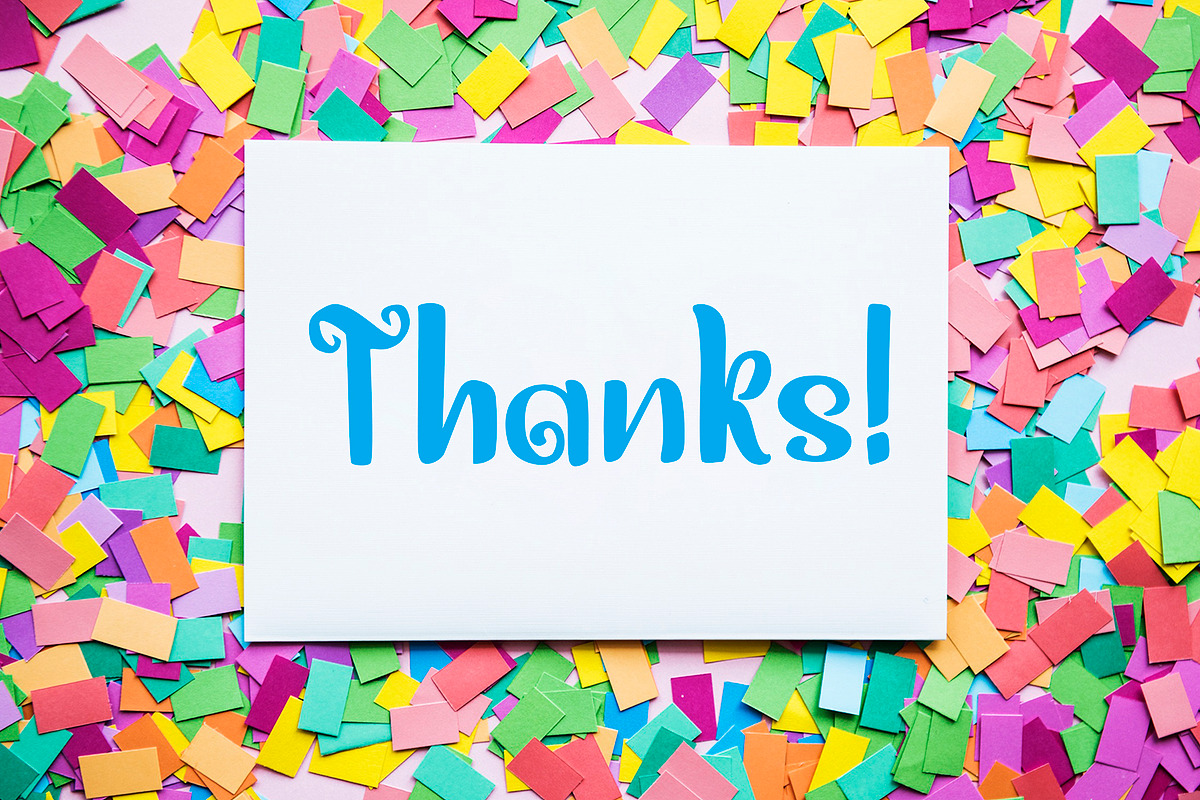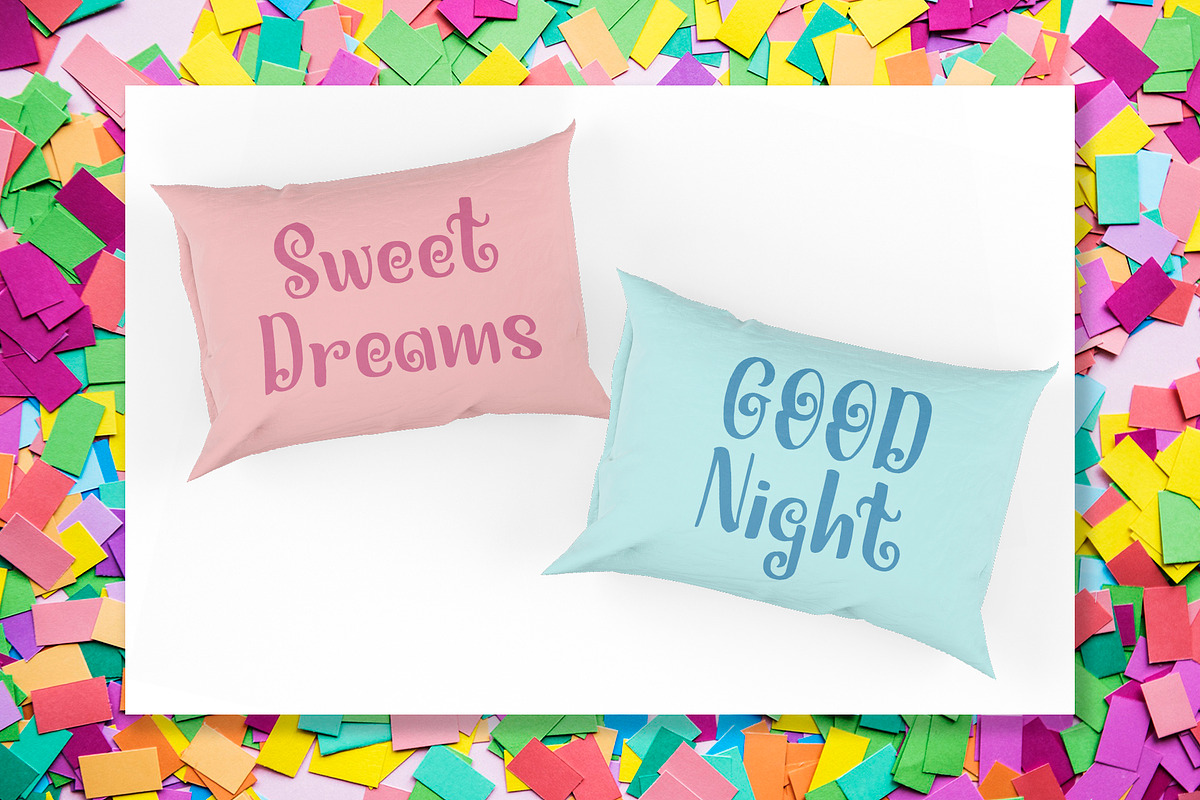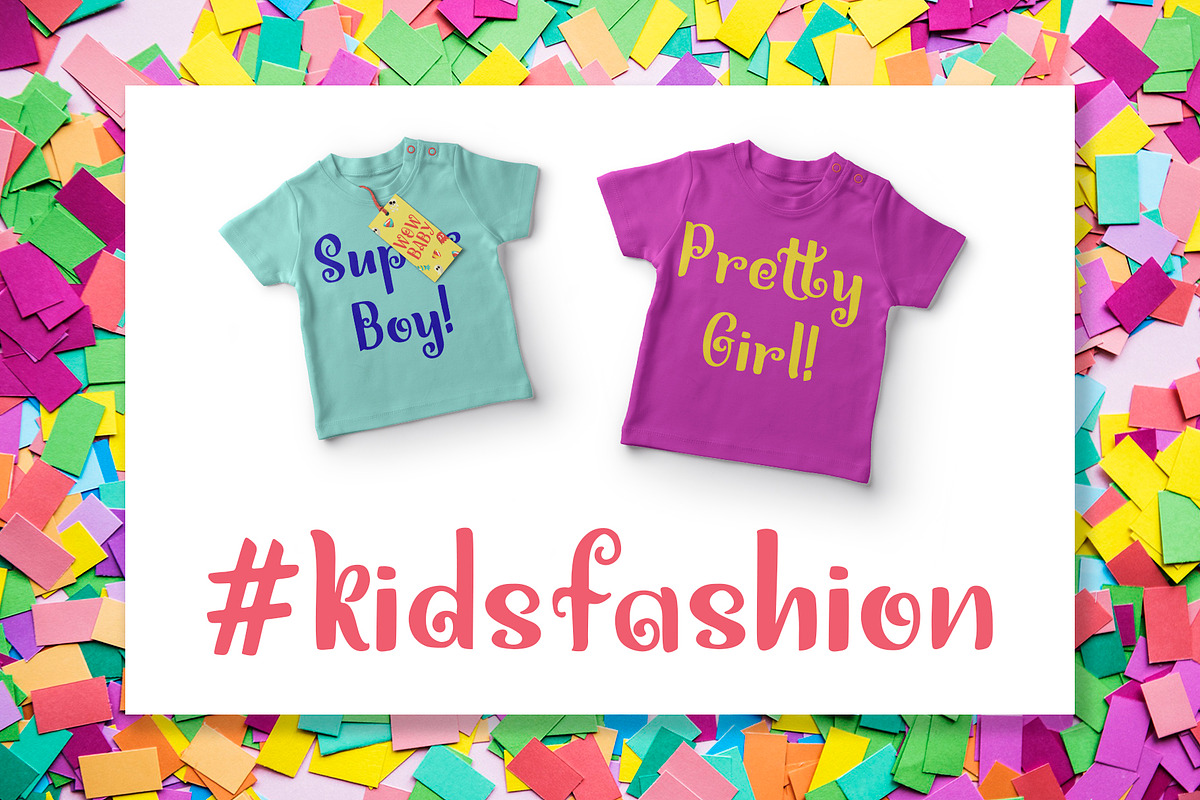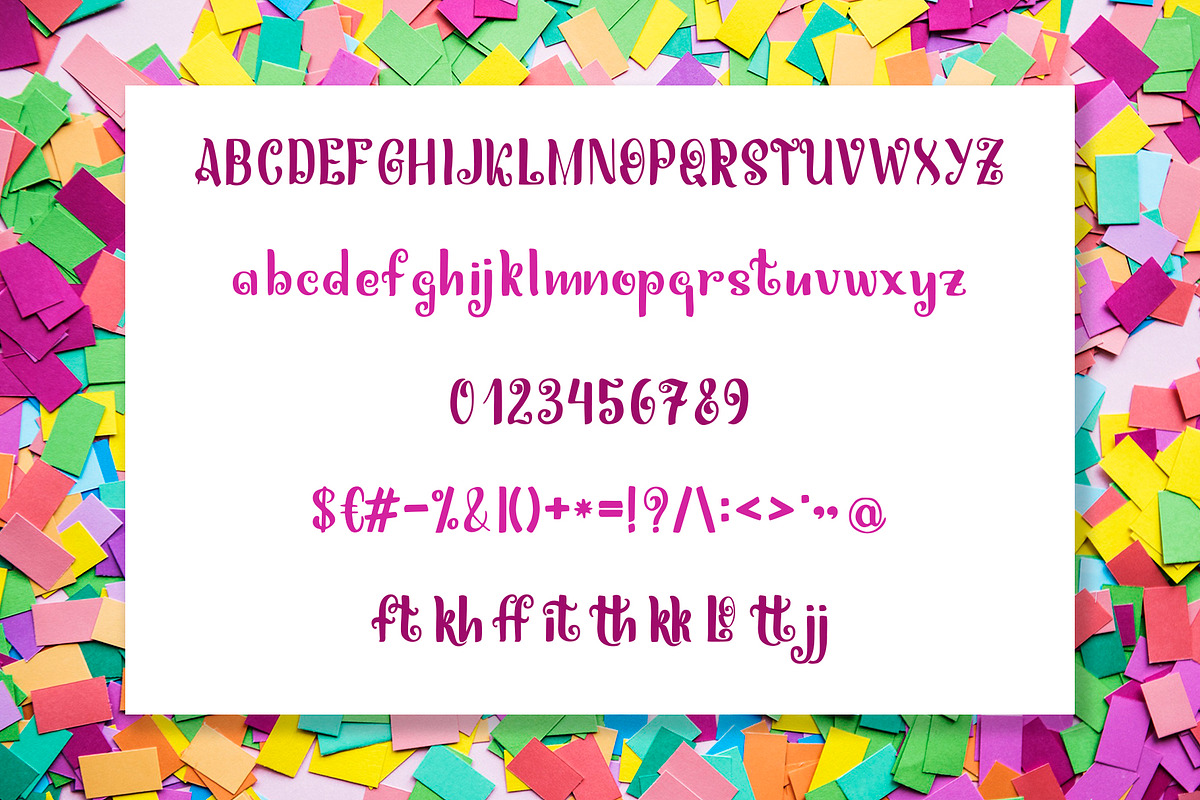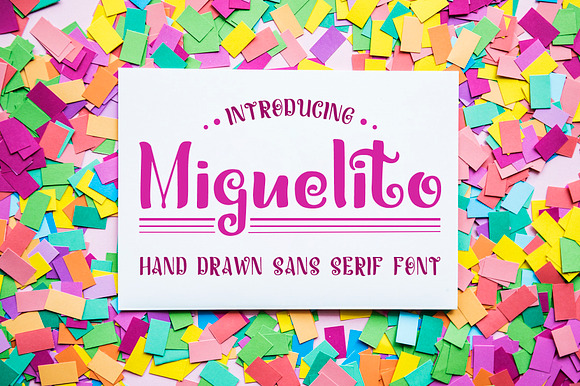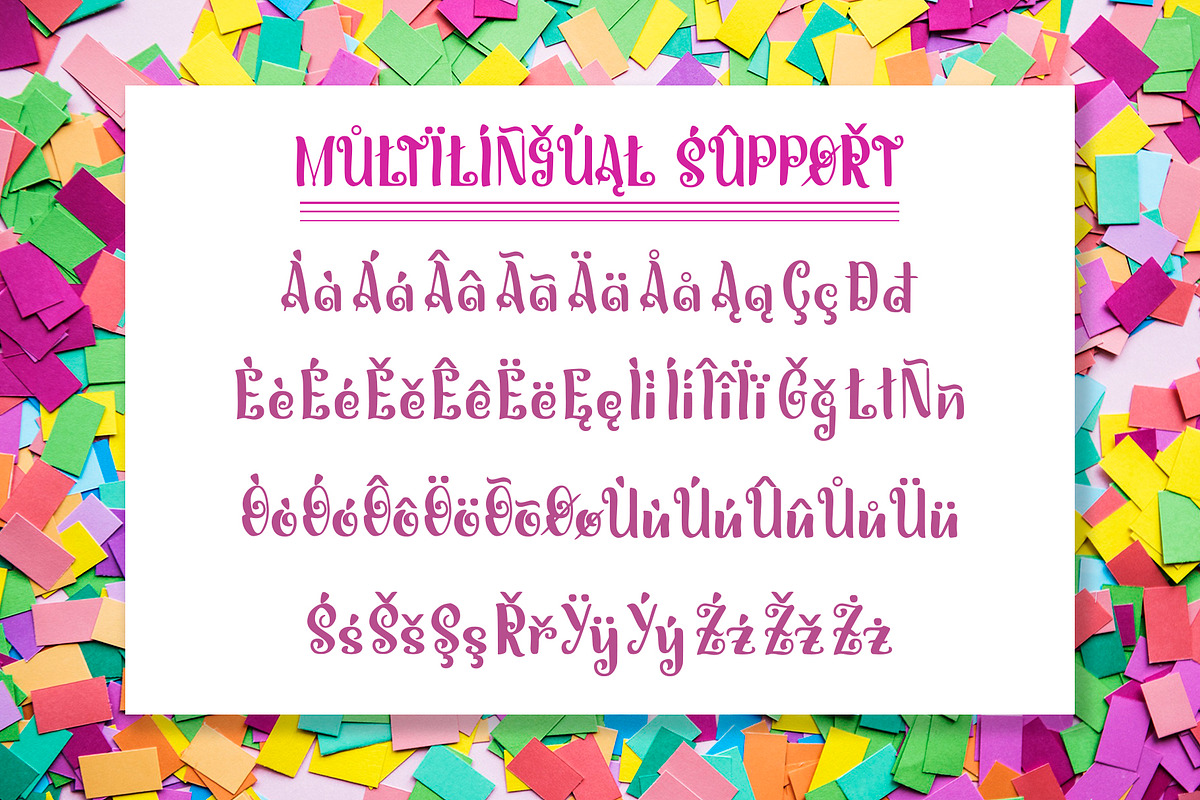
Miguelito - Hand Drawn Font
Miguelito font is based from hand drawn letters with a brushpen tool.
Miguelito Hand Drawn Sans Serif Font is perfect for prints, kids posters, logotype creation, lettering compositions, invitations, fashion projects, book design cover, magazines typography, cards, packagings and more.
More than 180 glyphs inside the font, you can also create many of other typography designs. Ligatures is a list of features from OpenType which you can use to pairing the letters each other powerfully. You will need a some OpenType Features software such as Adobe Illustrator, Photoshop CC, InDesign or Coreldraw X6 above, to access all the alternates from the font.
Miguelito have supporting for many languages as: Czech, Danish and Norwegian, Deutsch, English, Espanol, French, Italiano, Magyar, Nederlands, Polish, Portuguese, Finnish, Swedish, Turkish and other based on extended latin.
Miguelito - Hand Drawn Font by Artlana fits naturally into Branding, posters, packaging, typography.